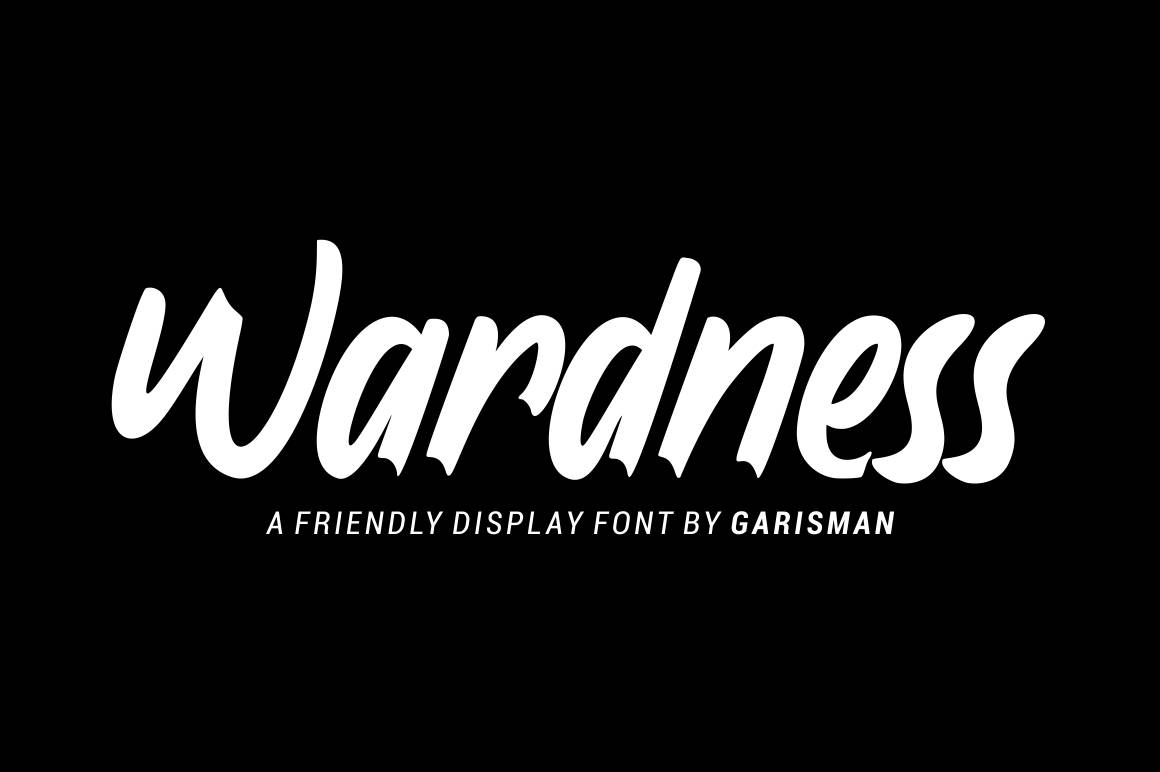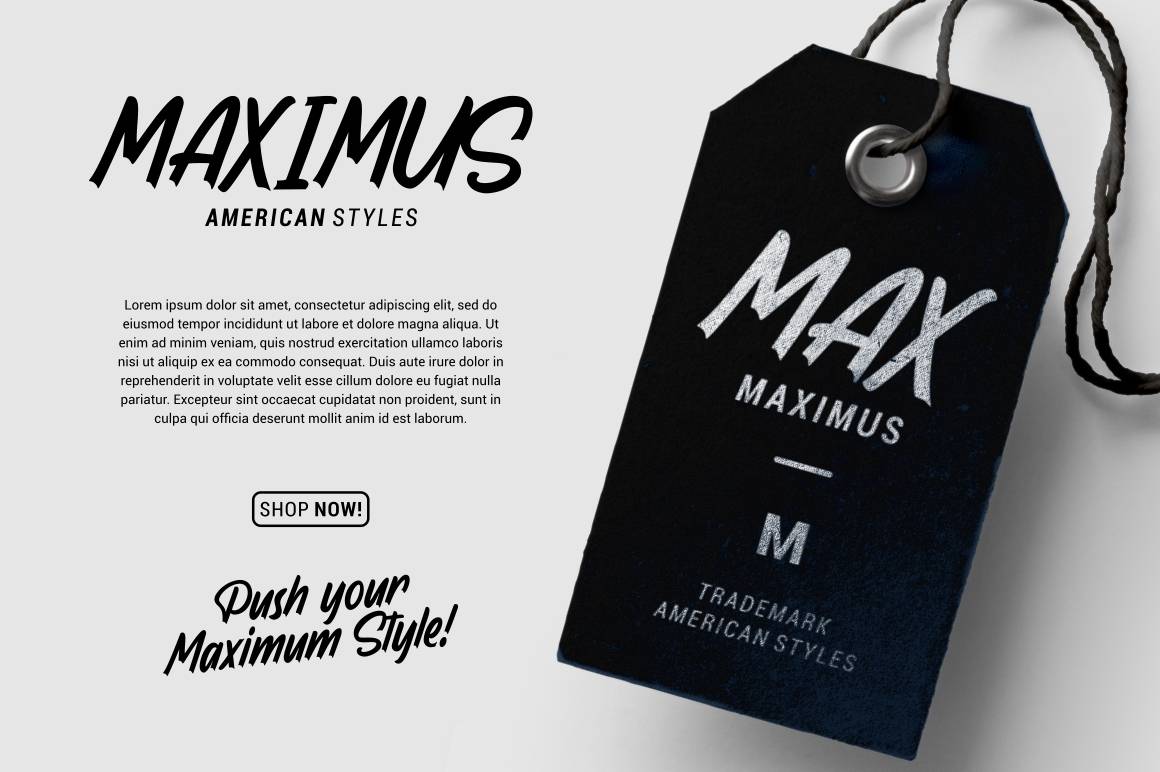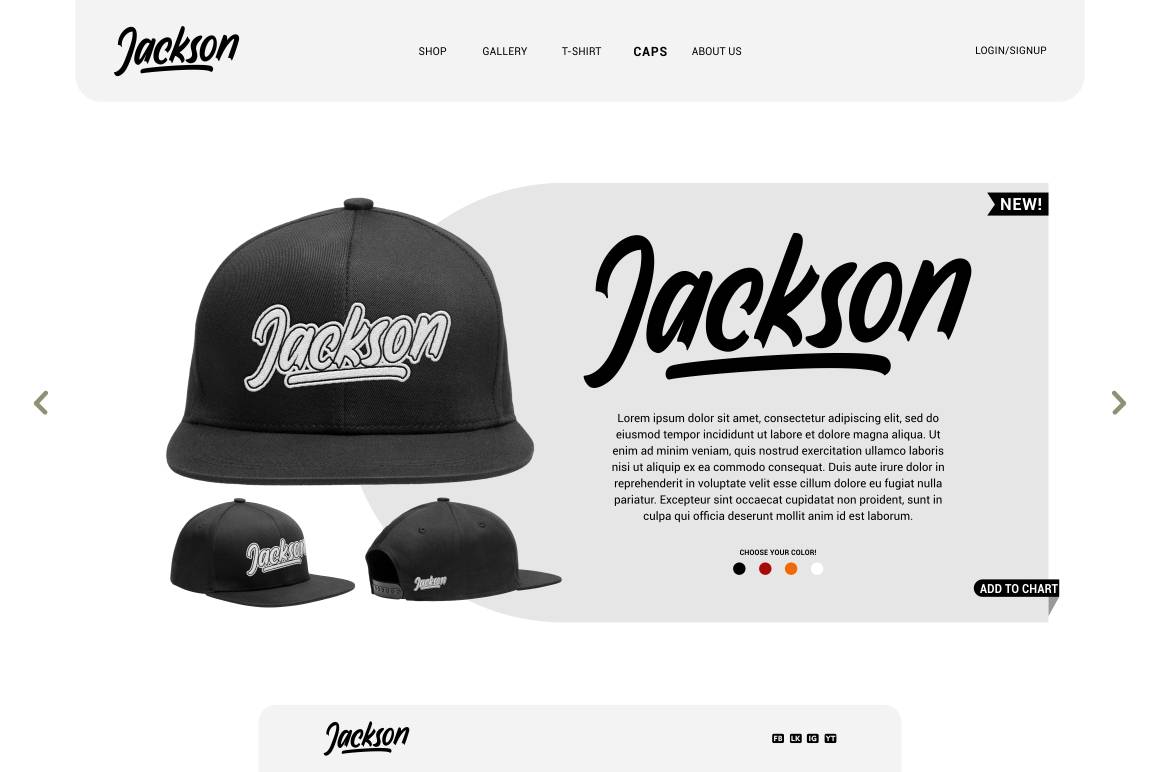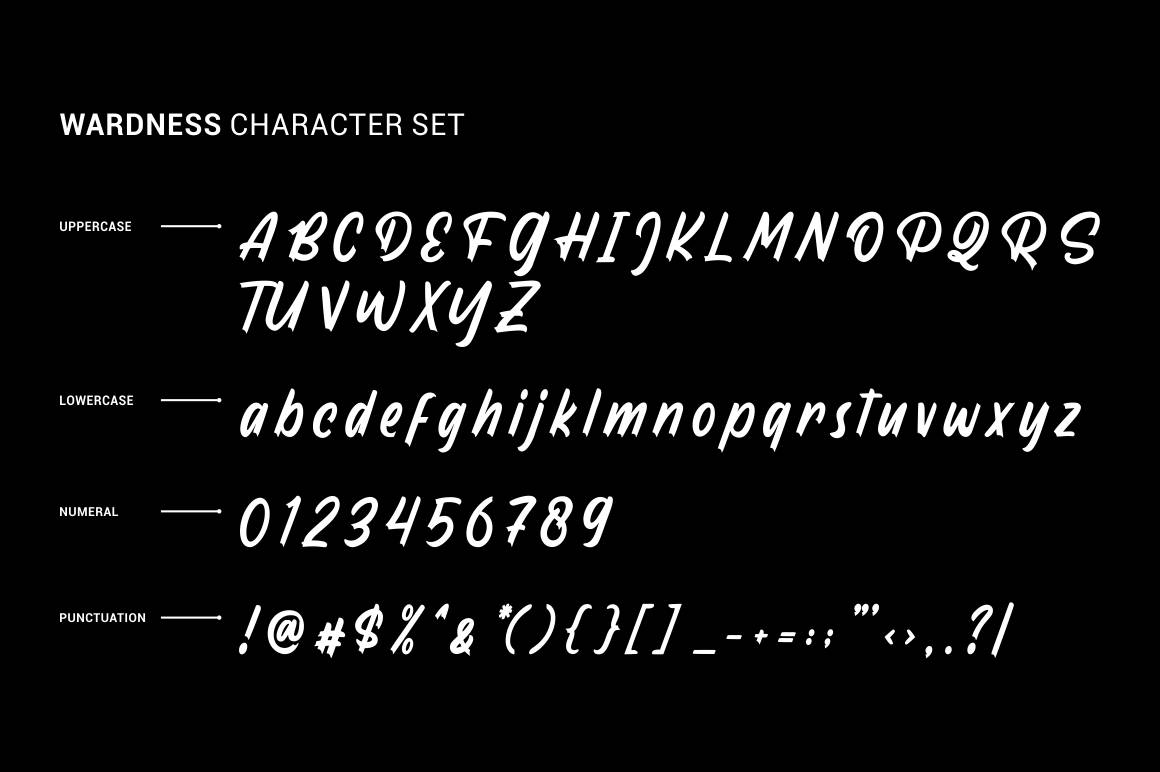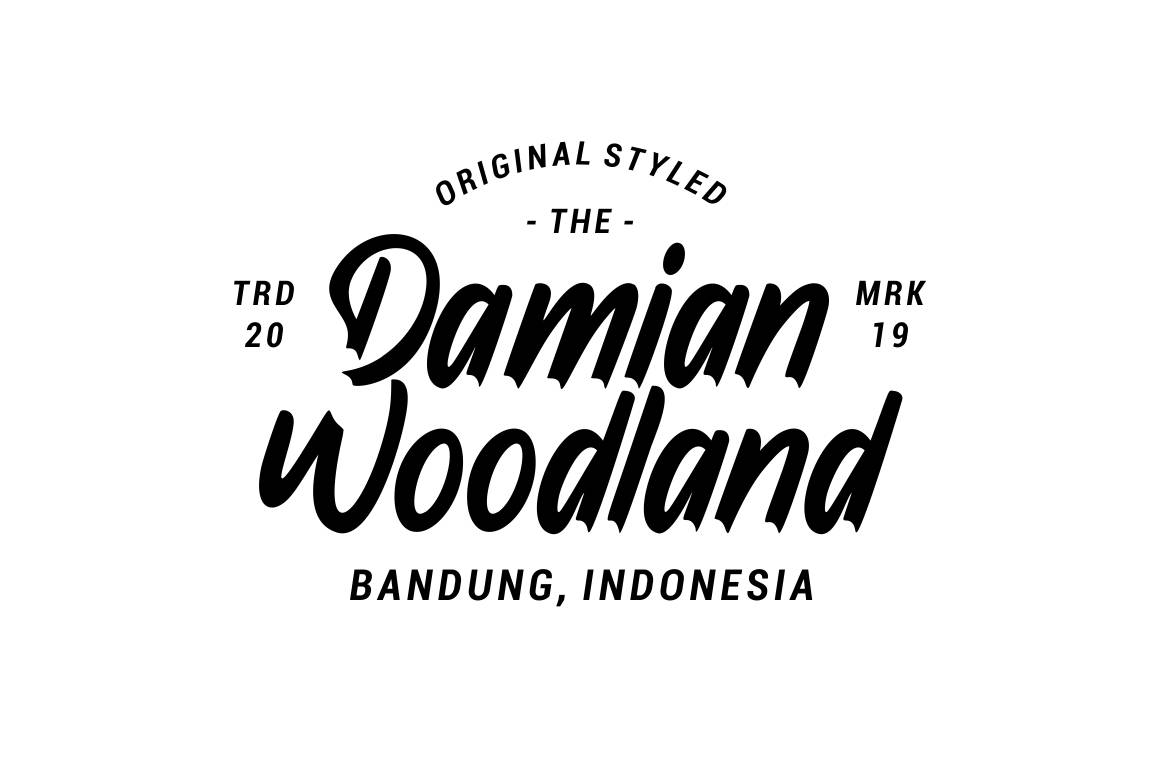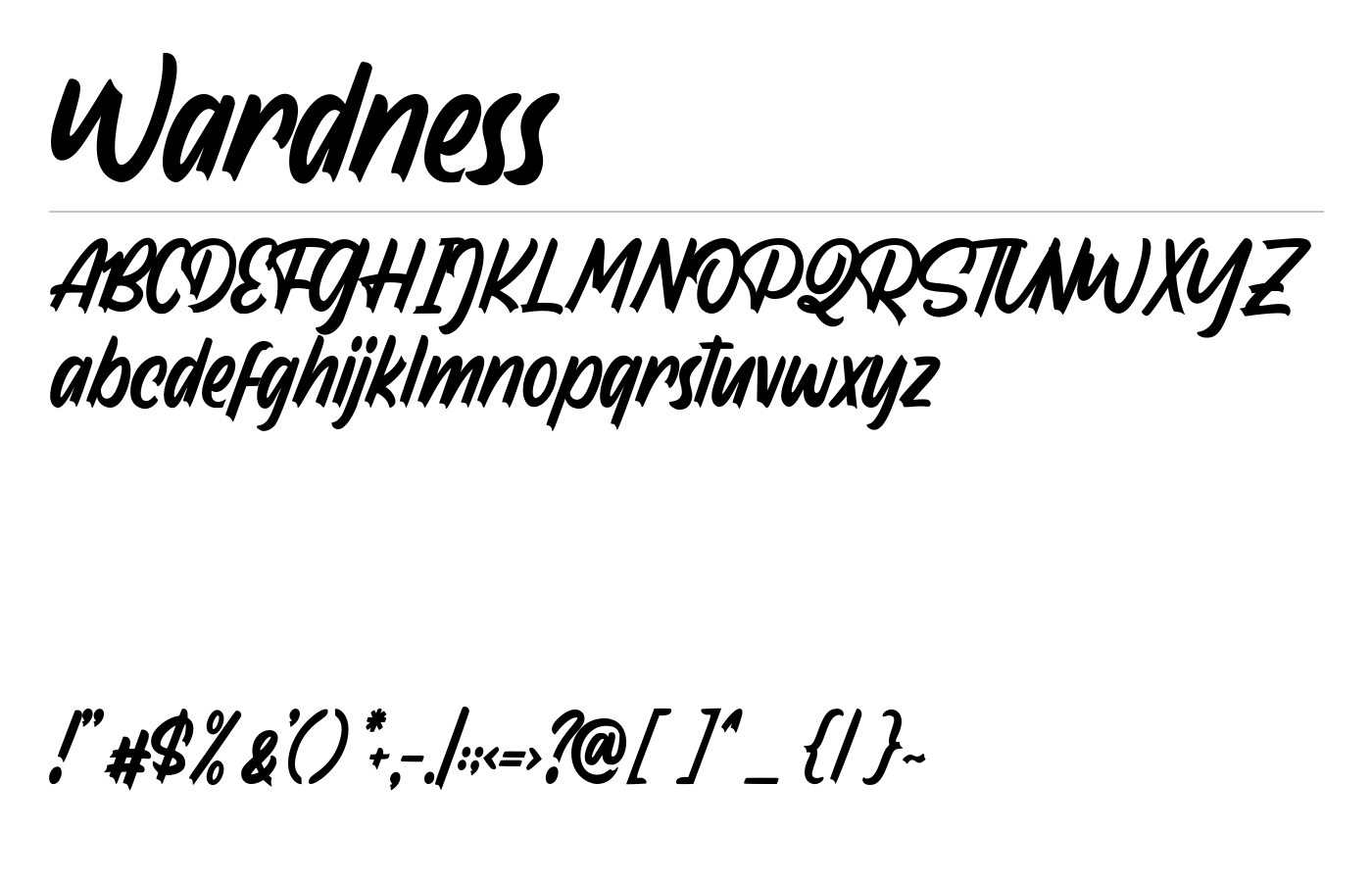
Wardness is a casual, brush-style script font with a lively and slightly slanted design that gives it a friendly and dynamic feel. The font features medium weight strokes with smooth, flowing curves and a hand-drawn texture, making it ideal for projects that want to convey warmth and personality. Its energetic style works well for logos, invitations, and creative branding that aim to be approachable and expressive.
Wardness Font
About Wardness Font
| Font family | Wardness Font |